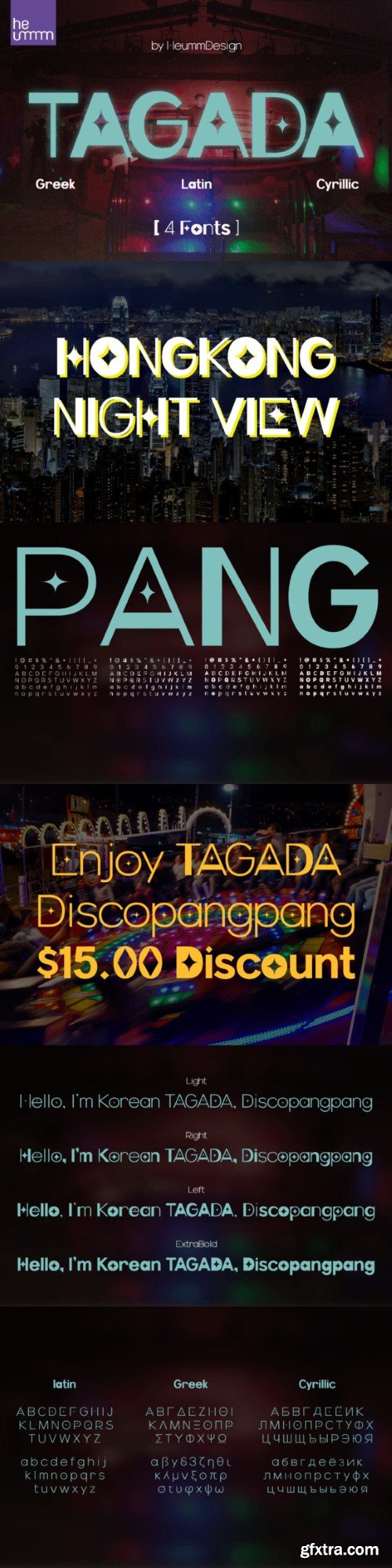
TAGADA 字体
“Disco Pang Pang” is the Korean name for Tagada rides. It is a characteristic typeface that is good to use when you want to make use of a unique and bouncy feeling. Light and Extrabold are made with the thickness of normal typefaces, but the Left and Right have strange shapes with stroke thicknesses that are biased to one side. Its unique shape can make a strong impression on people.